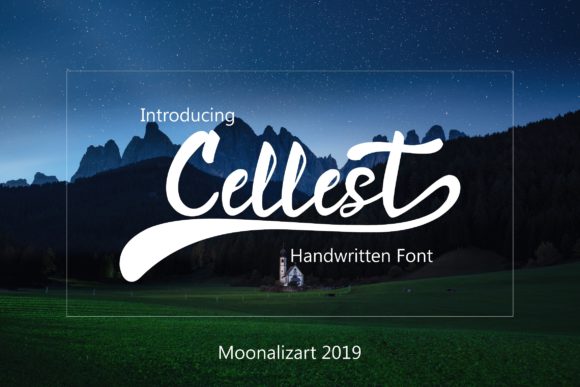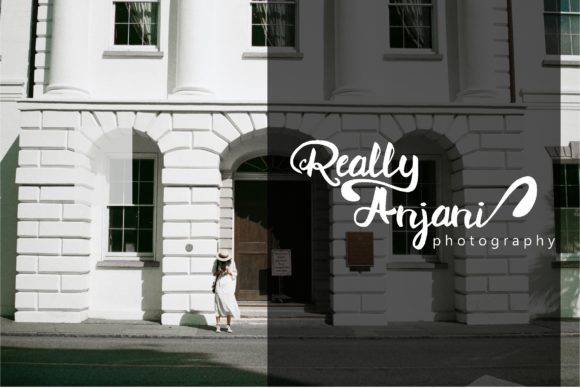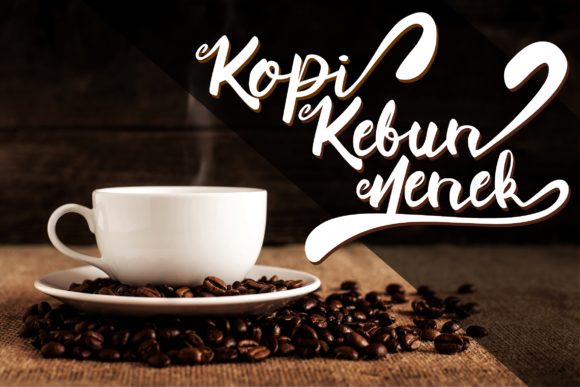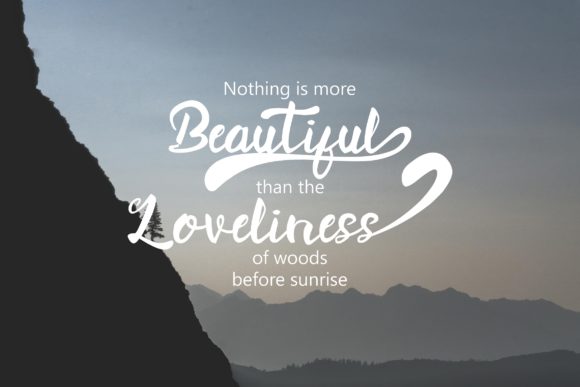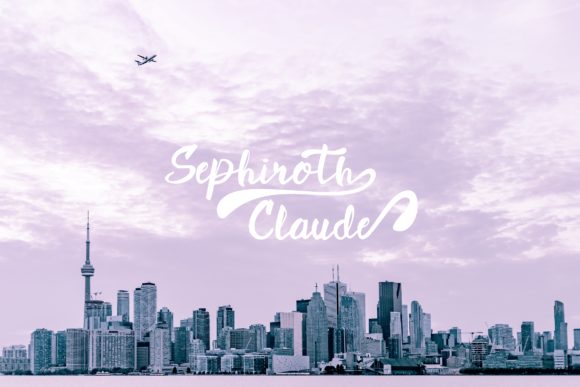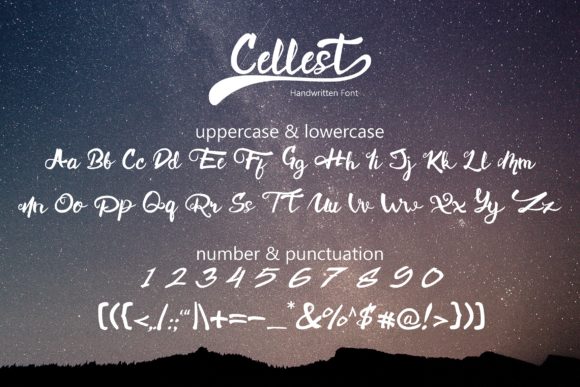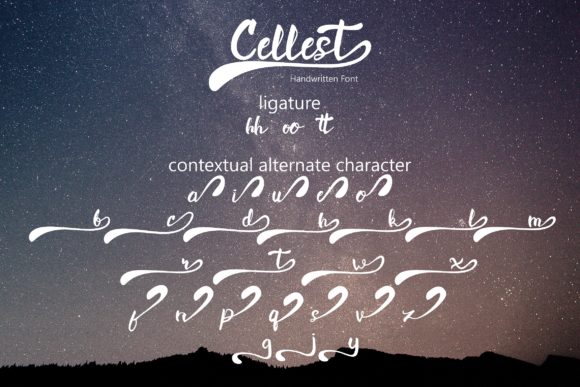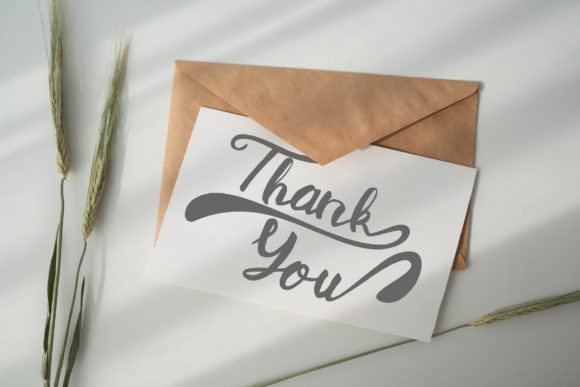
Cellest Font
About Cellest Font
Cellest is a sweet and fun design idea that will turn any design project into a true standout. Get inspired by its unique style!